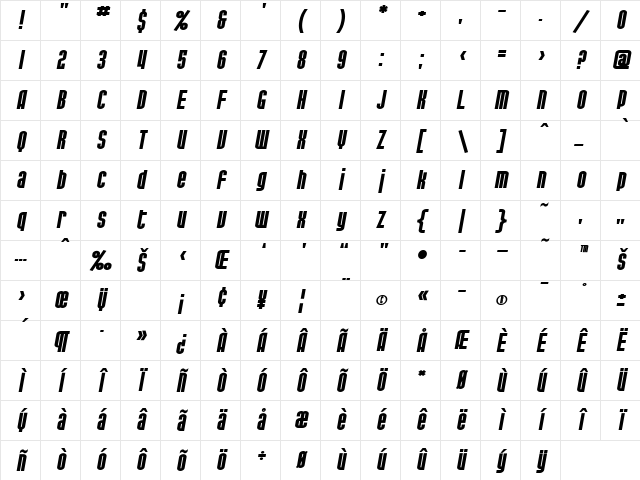
SF Port McKenzie Extended Bold Italic
SF Port McKenzie Extended Family
Design Context for SF Port McKenzie Extended
SF Port McKenzie Extended is a composed and adaptable typeface that performs quietly and consistently across a wide range of design contexts. The slanted form adds forward momentum and visual energy. Its bold stroke weight gives it real presence on the page.
Pro Tip: Use SF Port McKenzie Extended for emphasis, pull quotes, and subheadings where its slanted energy can add rhythm to the layout.